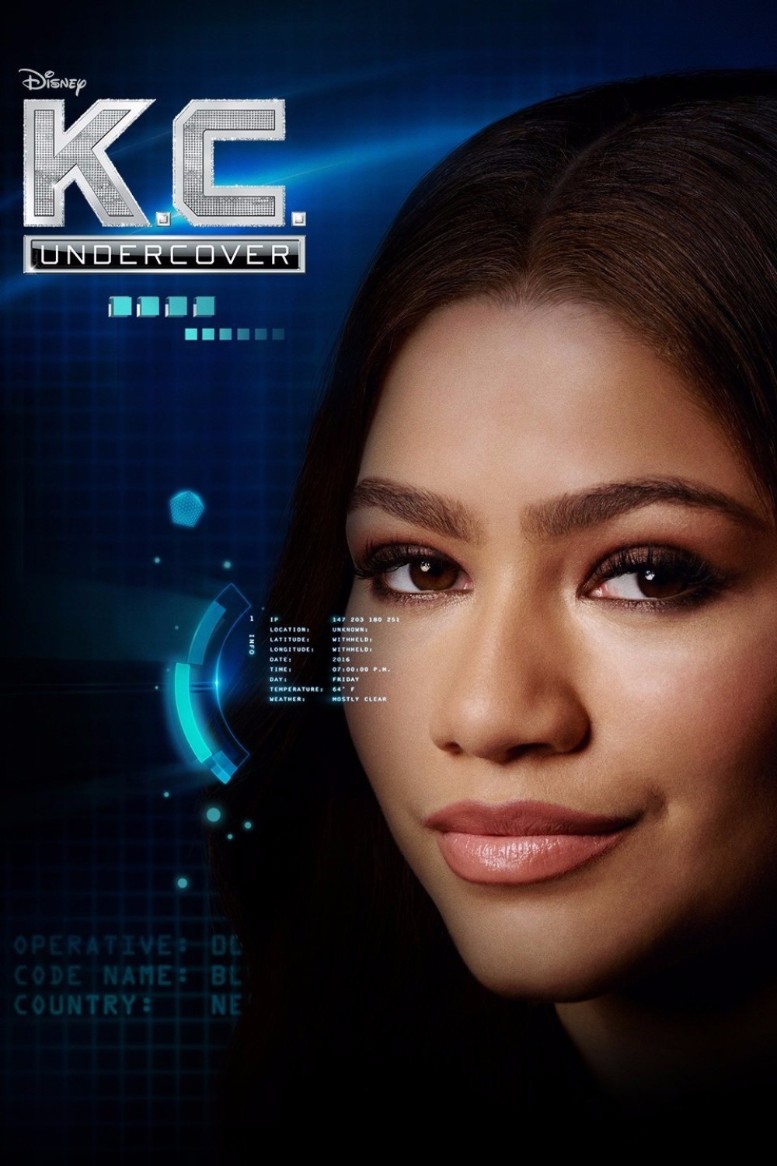
K.C. Undercover Font
AdventureK.C. Undercover is a Disney Channel series that follows the adventures of a teenage girl named K.C. Cooper who is a highly trained undercover spy. The show premiered in 2015 and ran for three seasons, ending in 2018.
The title of the TV series features a font that closely resembles Sackers Square Gothic, a geometric, all-caps, engraver font created by Monotype Design Studio.